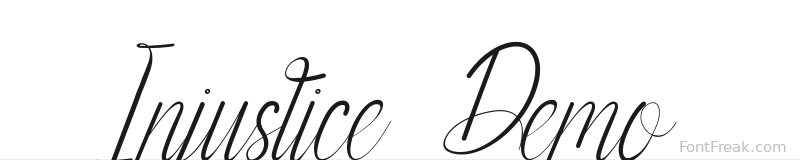
Injustice Demo
The Injustice Demo font by Noah Type is a stunning handwritten script that exudes elegance and flair. This display font features a unique combination of flowing strokes and artistic flourishes, making it a perfect choice for projects that require a touch of sophistication. The stroke weight is varied, with softer, rounded lines contrasted by sharper, more dynamic elements, creating an engaging visual rhythm. The spacing is generous, allowing each letter to breathe, which enhances readability while maintaining an artistic appeal.
This versatile font is ideal for a variety of use cases. Its charm makes it a fantastic choice for wedding invitations, where it can convey romance and elegance. Additionally, it works beautifully in crafting eye-catching movie posters, attracting attention with its stylish curves and dramatic flair. Restaurant menus can benefit from the Injustice Demo font as well, adding a touch of personality that reflects the dining experience. Furthermore, content creators looking to elevate their social media graphics will find this font to be an excellent fit, offering a unique signature style that can make posts stand out.
Targeted towards graphic designers, small business owners, and content creators, the Injustice Demo font free download presents an accessible option for those looking to enhance their visual branding. Its artistic expression appeals to a wide audience, making it a go-to choice for projects that require a personal touch.
What truly sets the Injustice Demo font apart is its ability to blend artistry with functionality. It captures the essence of handwritten design while remaining versatile enough for various applications. Whether you're designing a heartfelt invitation or a bold promotional piece, this font will undoubtedly leave a lasting impression.